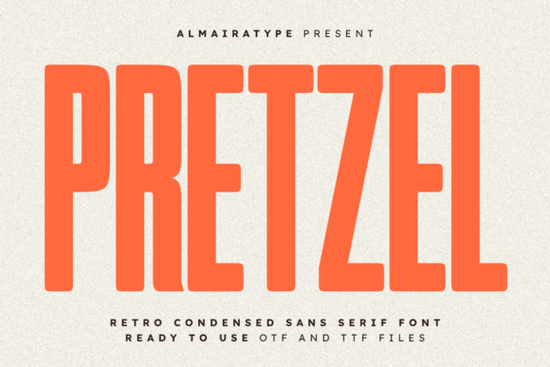
If you're looking for a bold, condensed sans serif that feels both nostalgic and fresh like something you’d spot on a vintage diner sign but still works perfectly on a modern Instagram post you’ll likely enjoy Pretzel Font. It’s not overly ornate or gimmicky. Instead, it balances clean geometry with subtle warmth: tall letterforms, gentle rounding at the corners, and a consistent, medium-heavy weight that holds up well across formats from screen to vinyl cut to printed merch.
Who actually uses Pretzel and why it fits so well
Designers building brand identities for small businesses think local coffee shops, indie bakeries, or neighborhood boutiques often reach for Pretzel when they want typography that feels approachable but never childish. Its condensed structure saves space without sacrificing legibility, making it especially handy for apparel layouts (like chest prints on tees), social media banners, or product labels where every pixel counts.
Crafters using Cricut or Silhouette machines also report consistently clean cuts with Pretzel. The outlines are smooth, with no tight inner corners or fragile serifs to snag during weeding. That’s not always guaranteed with retro-inspired fonts even some popular ones need manual tweaks before cutting. With Pretzel, you can often import and cut straight from the file.
How does it compare to other friendly condensed sans serifs?
It’s easy to mix up Pretzel with fonts that lean more geometric or more playful. For example, Agootack has a slightly bolder, more squared-off rhythm and works well for high-contrast headlines, while Grandeur brings in more Art Deco influence with its tapered strokes and dramatic vertical stress. If you like Pretzel but want something softer and rounder overall, Bisked is worth checking it shares that warm, hand-tuned feel but with looser proportions and friendlier curves.
For designers who already rely on classics like Helvetica, Pretzel offers a subtle but meaningful alternative when Helvetica feels too neutral or too corporate. And if you’re drawn to rounded sans serifs in general, the Rounded Sans Bundle gives you variety across weights and moods but Pretzel stands out in that collection for its distinct retro-compressed silhouette.
Where does it work best in real projects?
- Apparel & POD: Works cleanly on black or heather grey tees especially for short slogans, shop names, or food-related branding (e.g., “The Daily Pretzel”, “Roll & Rise Bakery”).
- Vinyl & heat transfer: No thin hairlines or overlapping counters so it cuts cleanly on Cricut Explore Air 2, Maker, or Silhouette Cameo 4.
- Digital use: Holds up well at small sizes in UI buttons or mobile banners, thanks to generous x-height and open counters.
- Editorial & packaging: Adds visual punch to magazine section headers or jar labels without needing extra effects like shadows or outlines.
One thing to keep in mind: Pretzel is designed as a display font not a body text font. You wouldn’t want to set a full blog post in it. But for anything meant to be seen quickly and remembered logos, posters, social graphics, or even embroidered patches it delivers clarity and character in equal measure.
- ✅ You need a bold, condensed sans serif for headlines, logos, or apparel not long-form text.
- ✅ You’re using Cricut, Silhouette, or similar cutting tools and want reliable, low-maintenance outlines.
- ✅ Your project leans into retro-modern aesthetics not strict mid-century or ultra-minimalist.
If those match your needs, Pretzel is a straightforward, dependable choice not flashy, but thoughtfully made for real creative work.